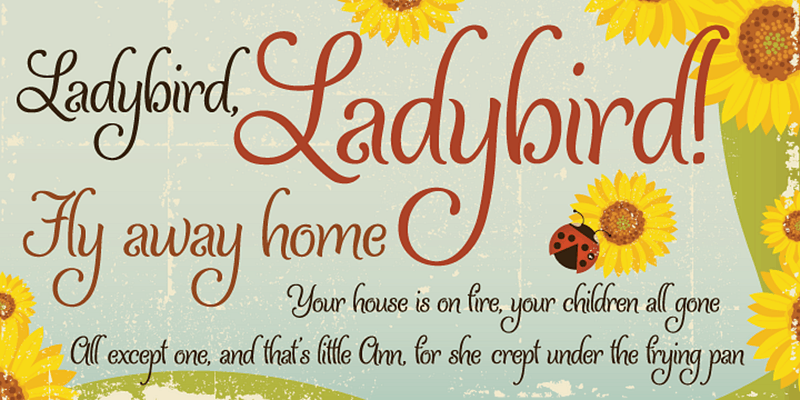
Ladybird Font Free Download is a charming and whimsical handwritten script typeface with a soft and playful feel. Featuring elegant curves and delicate flourishes, this font is perfect for projects that need a friendly, personal touch, such as invitations, greeting cards, logos, and branding for creative or artisanal businesses.
Ladybird Font Free Download brings warmth and personality to your typography with its flowing, organic letterforms that resemble the style of hand-lettered calligraphy. It’s an ideal choice for projects that seek to evoke a sense of intimacy and handcrafted beauty.
This font pairs beautifully with modern sans-serif fonts or other handwritten scripts to create dynamic and expressive compositions.